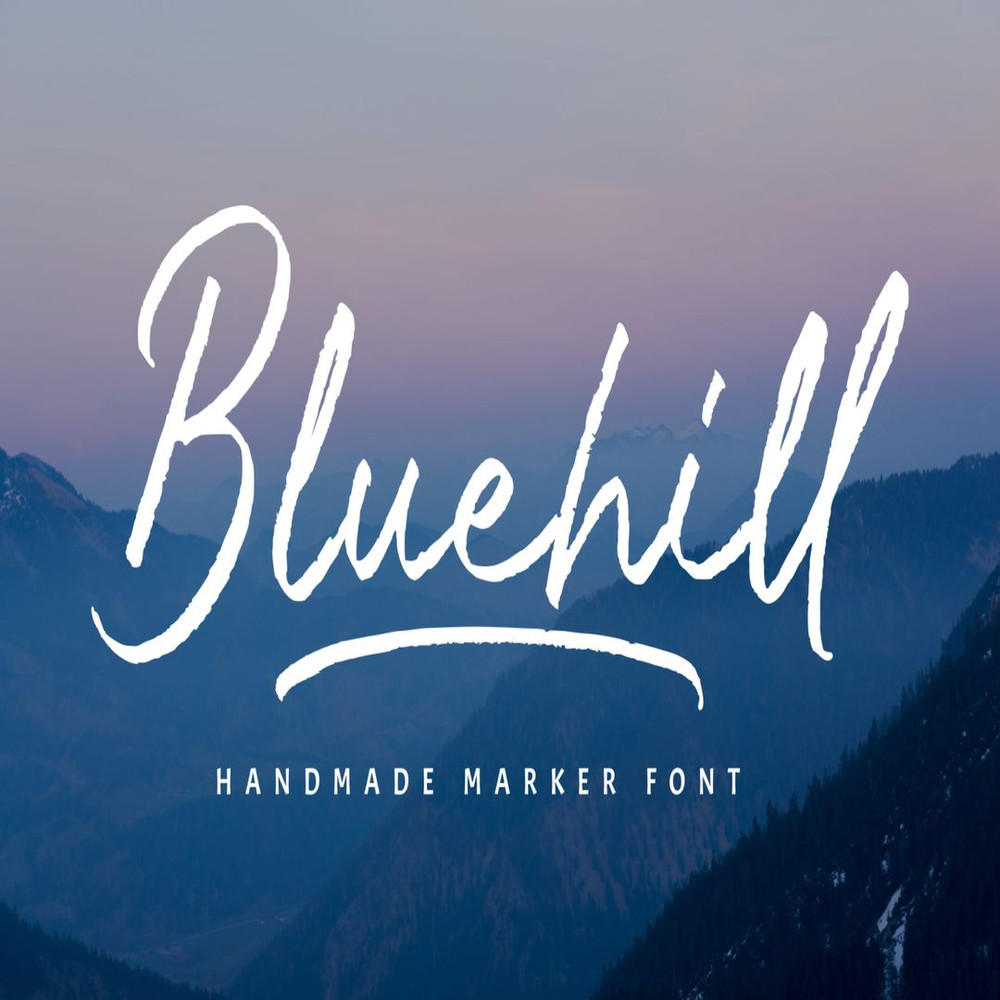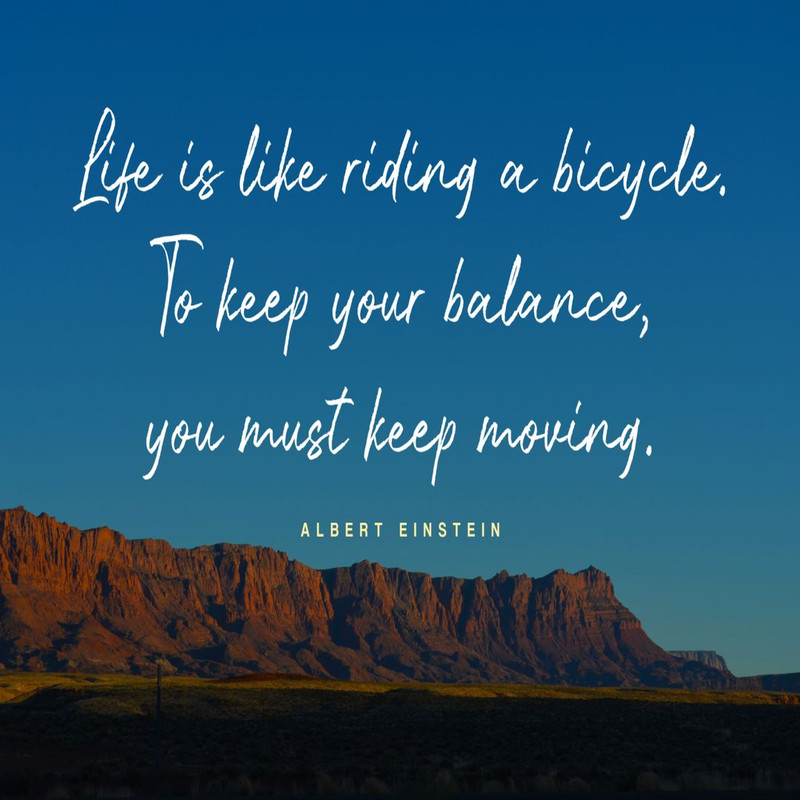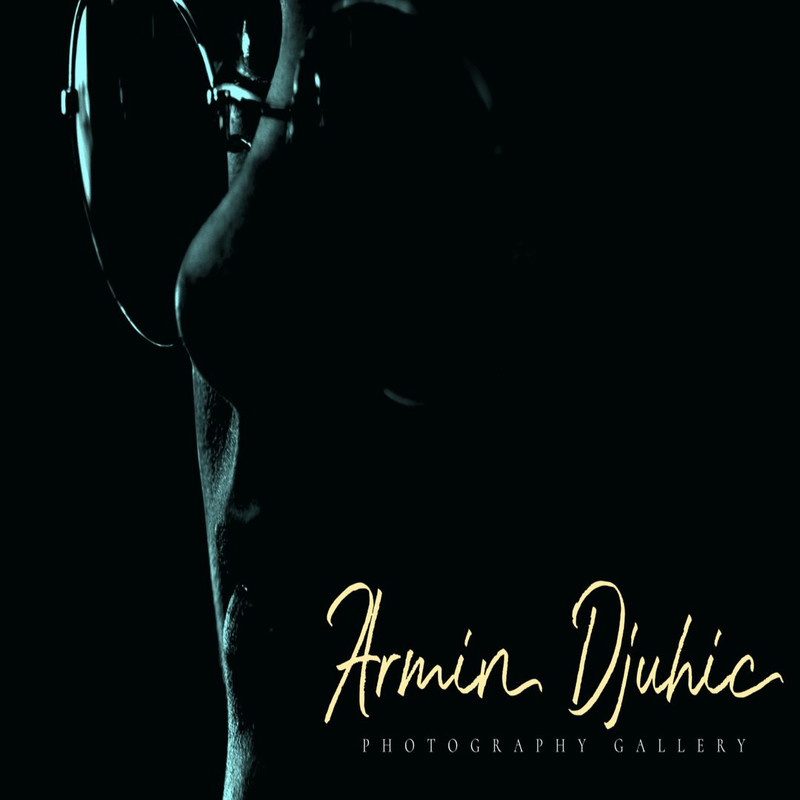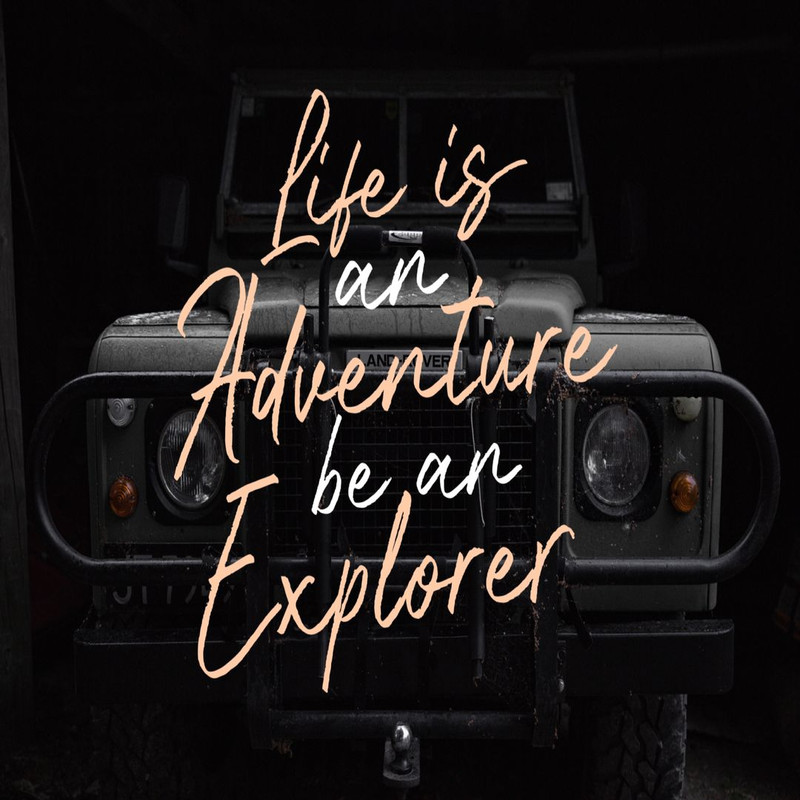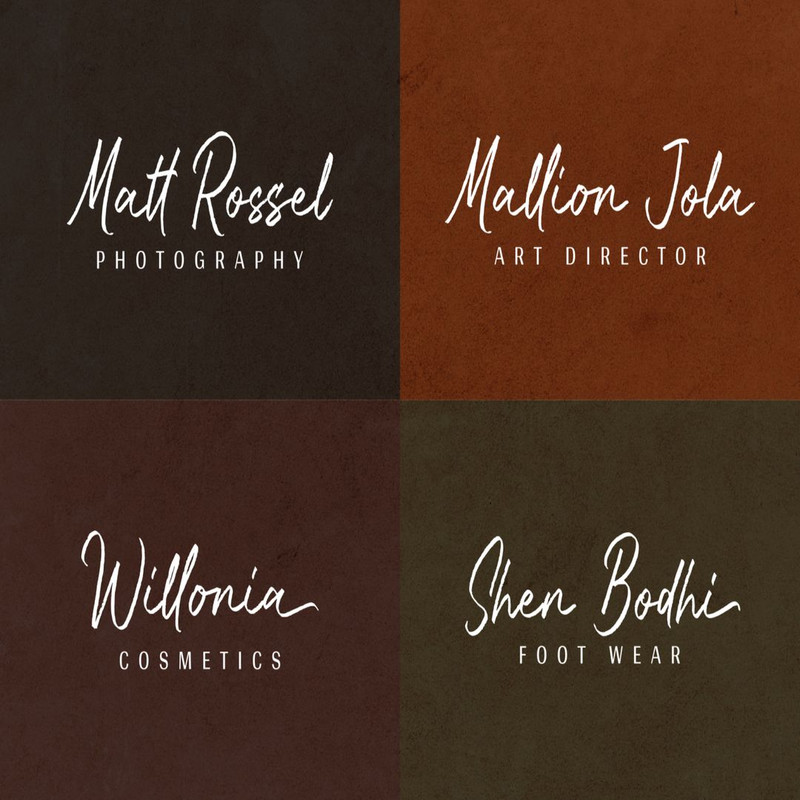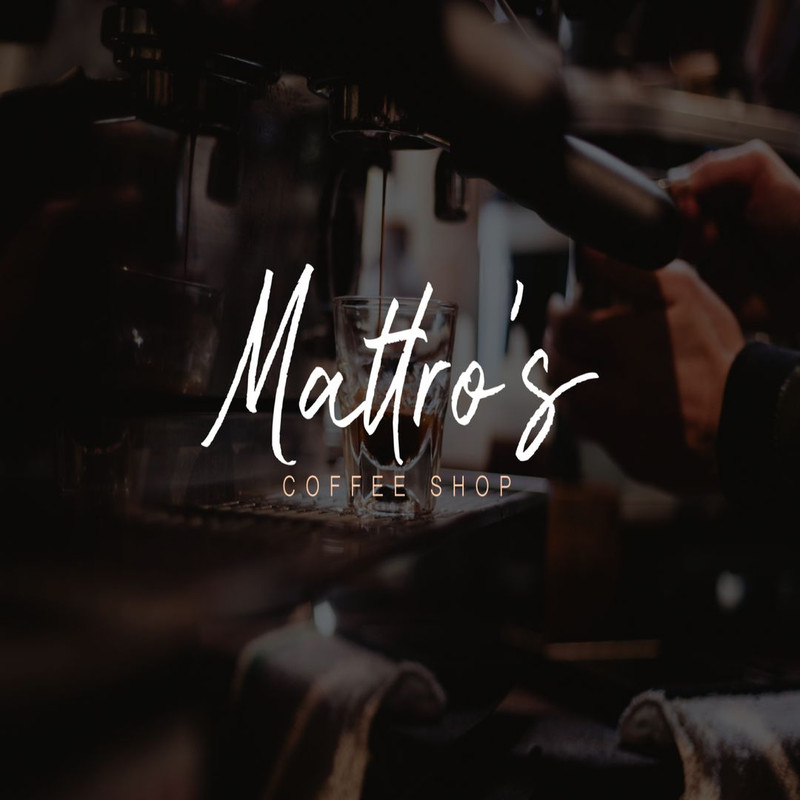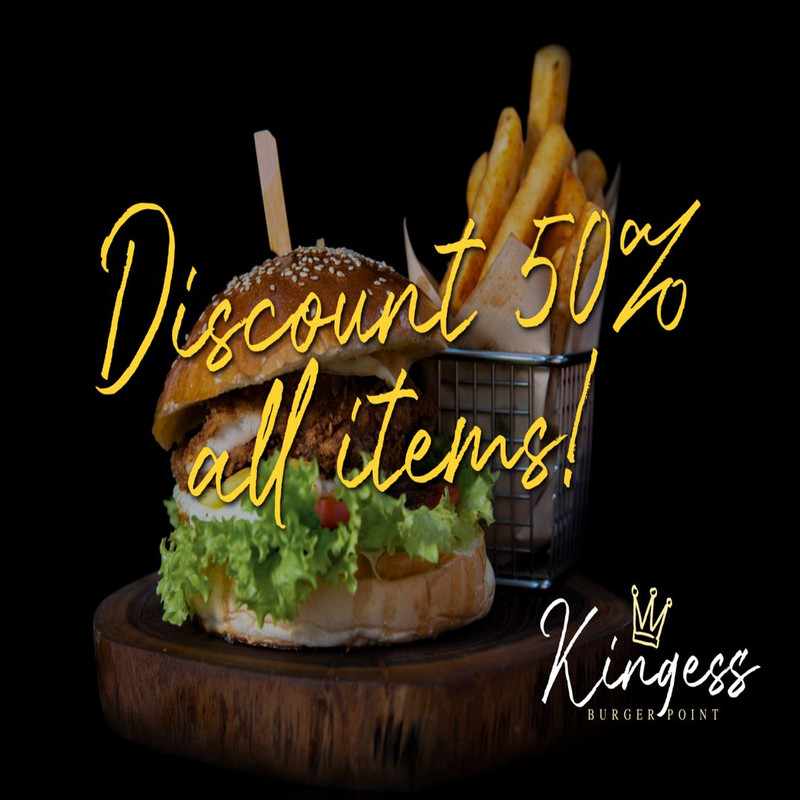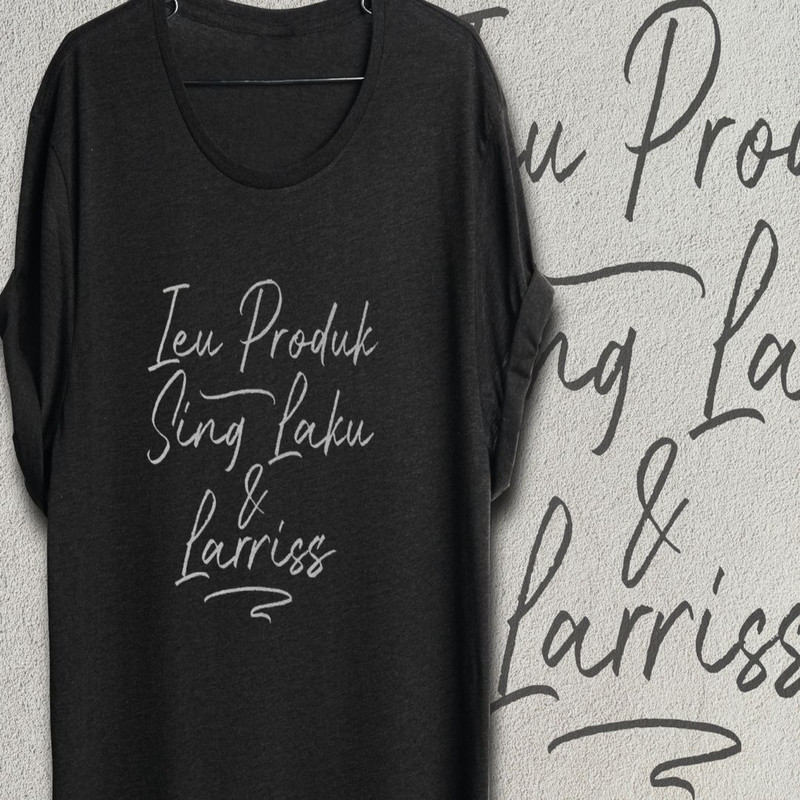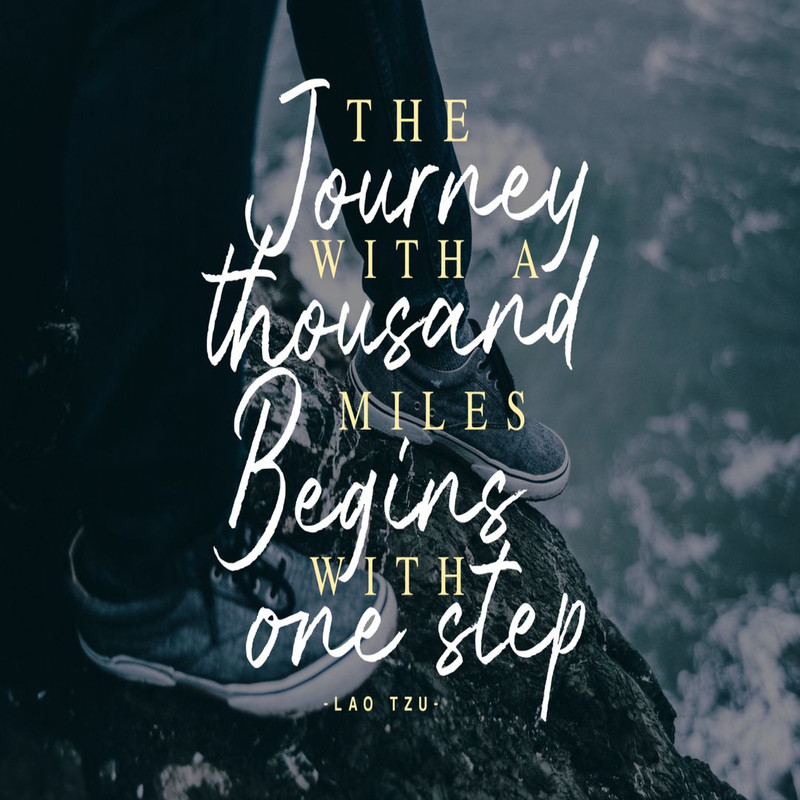
Bluehill is a dry marker handwritten font with textured lines and classy style for your signature or design purpose. It comes with dynamic ligatures and alternates to give you more natural experience.
Bluehill is a good choice for many different project such as logos & branding, invitation, stationery, wedding designs, social media posts, advertisements, product packaging, product designs, label, photography, watermark, special events or anything.